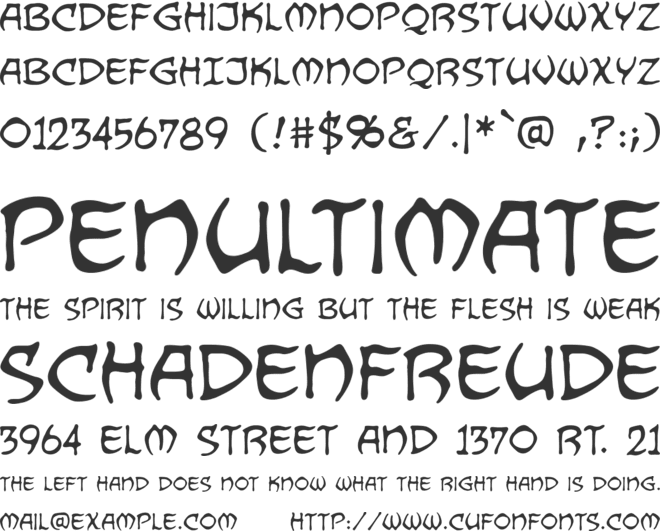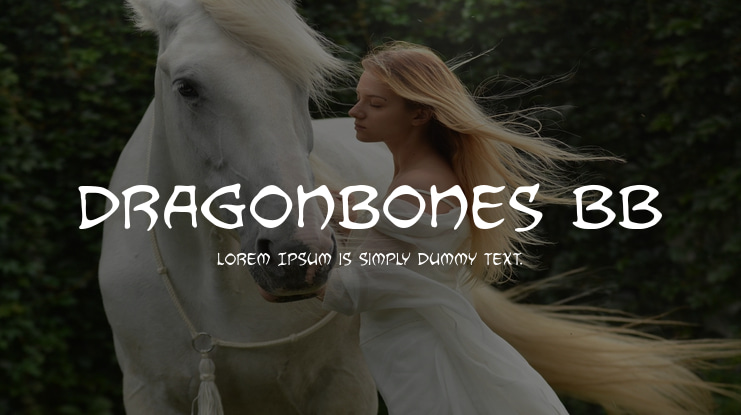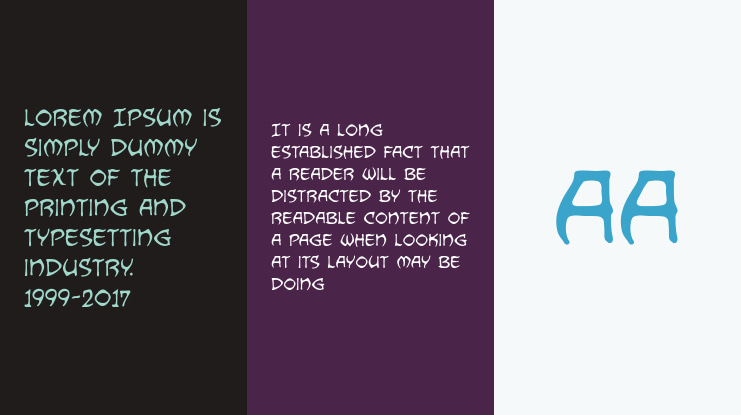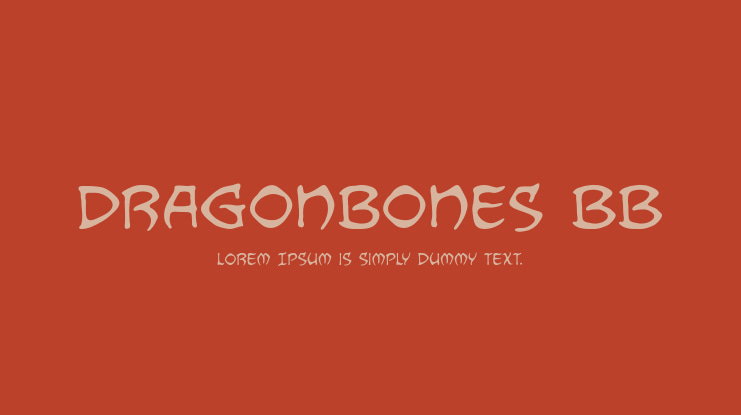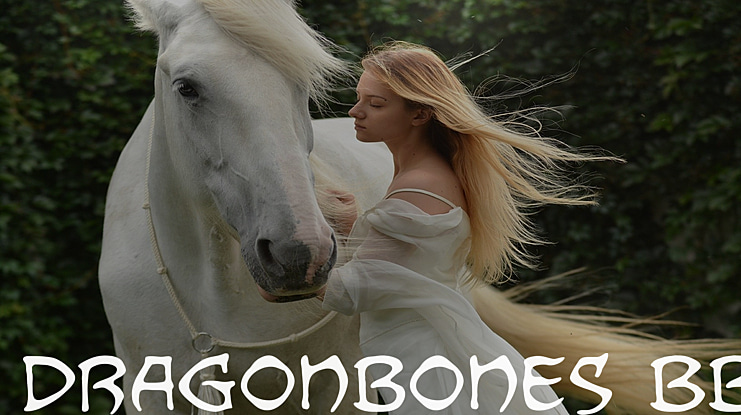
Dragonbones BB Font Family
Nate Piekos
With regular, italic and bold included, Dragonbones is perfect as the voice for your ancient wyrm or snivelling goblin. On an interesting side note, I challenged myself to create a font from start to finish in 24 hours. Dragonbones is it! Of course it helped that I needed a font like this for the voice of Frog Thor in a new Marvel book. Necessity is the mother of invention!